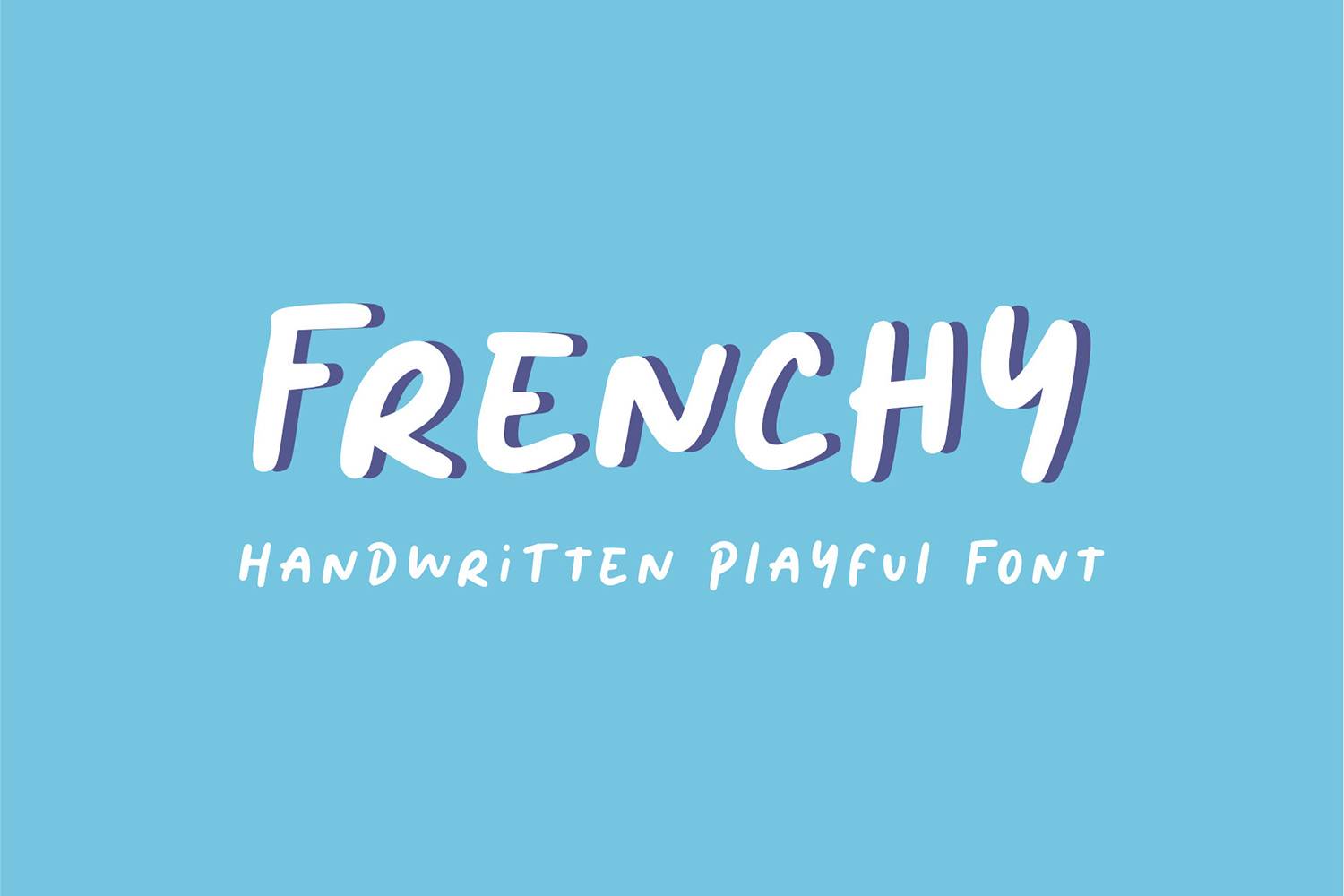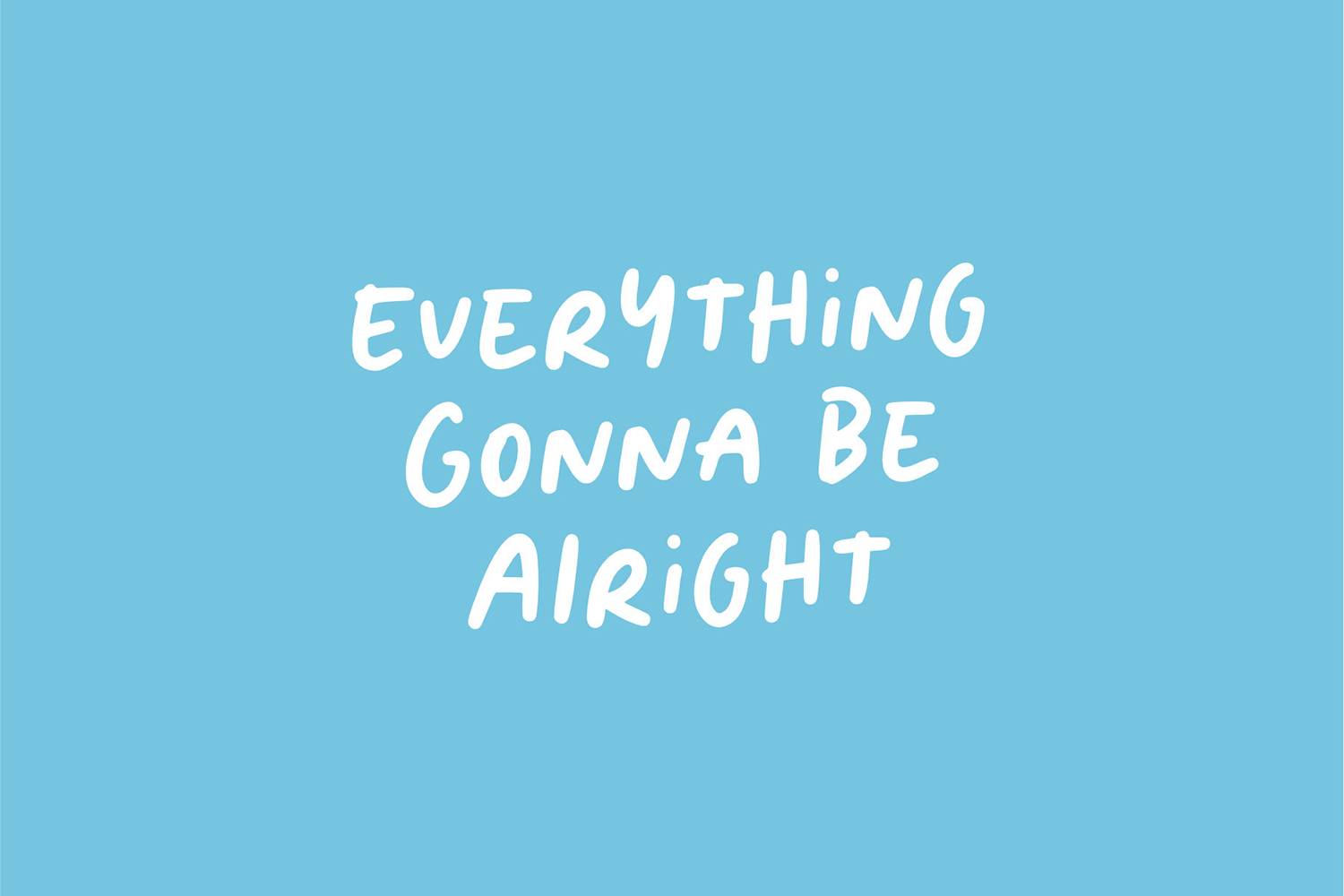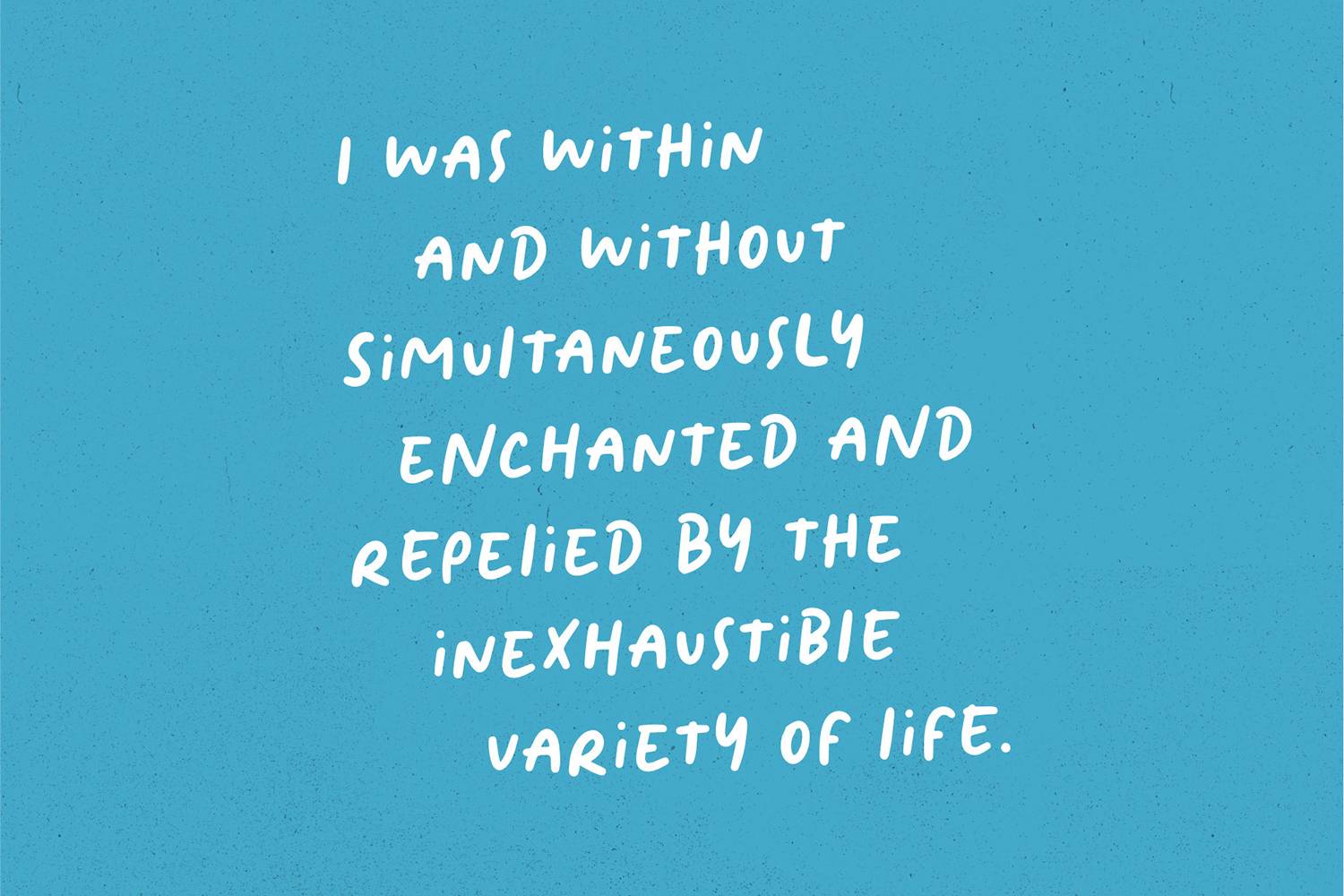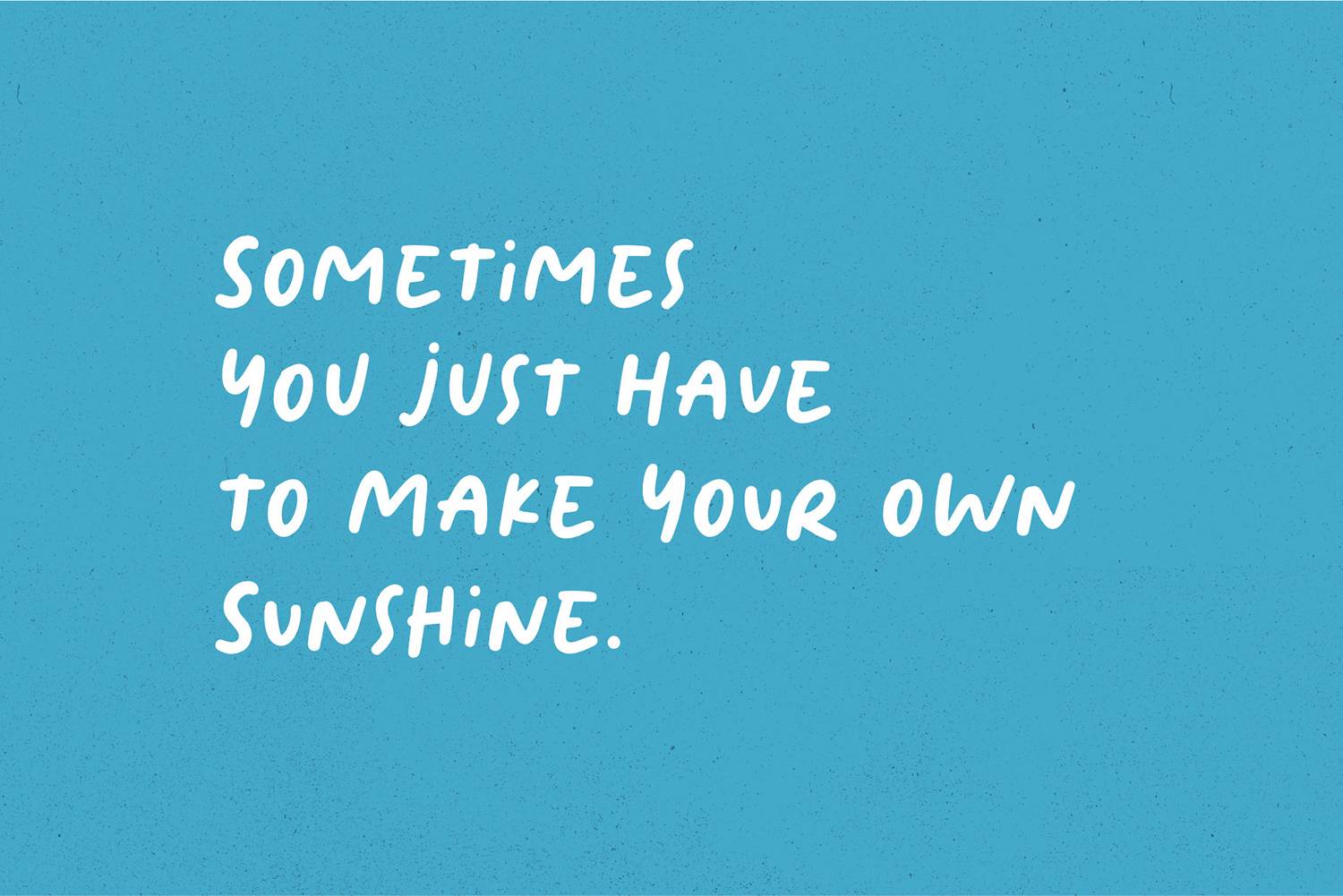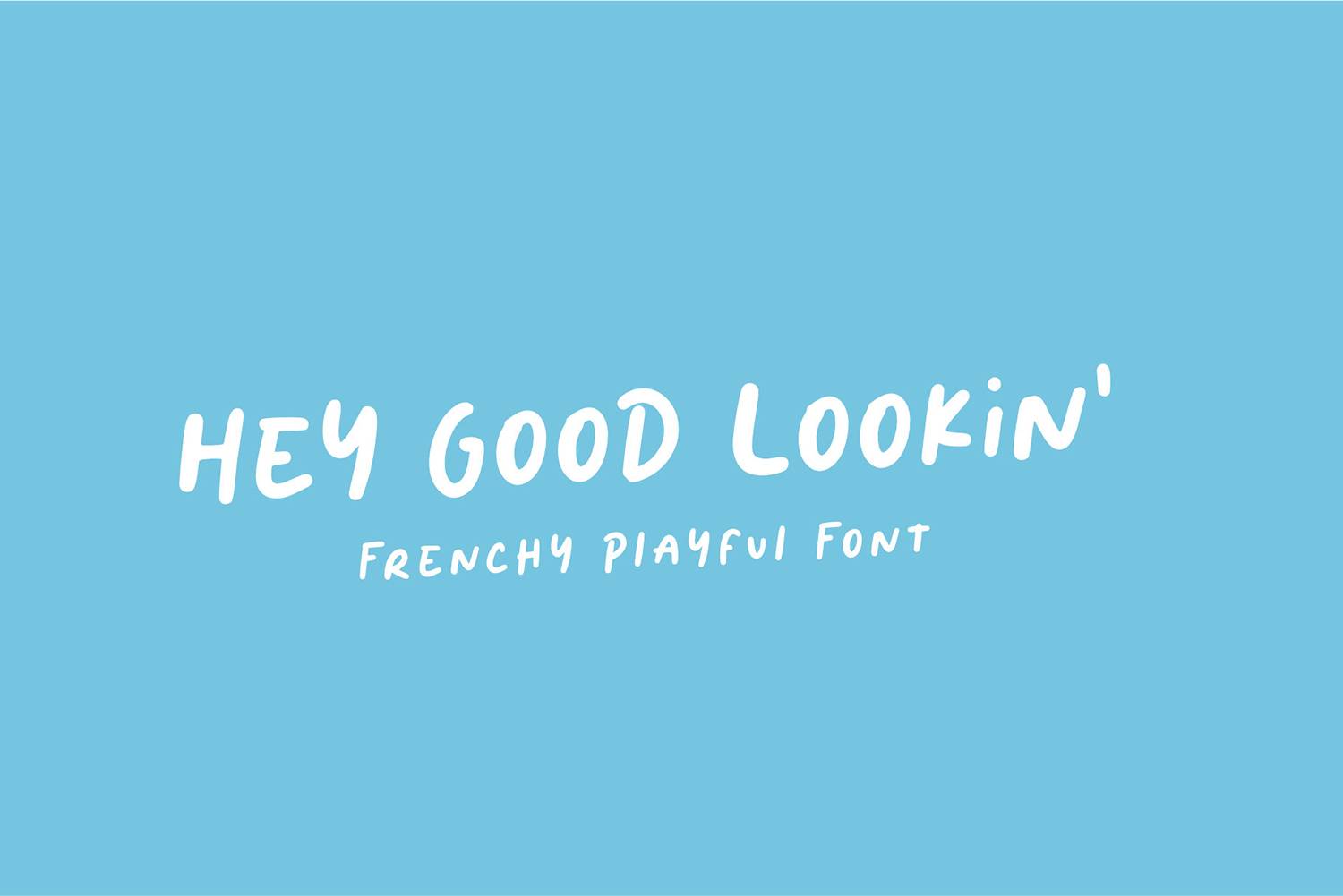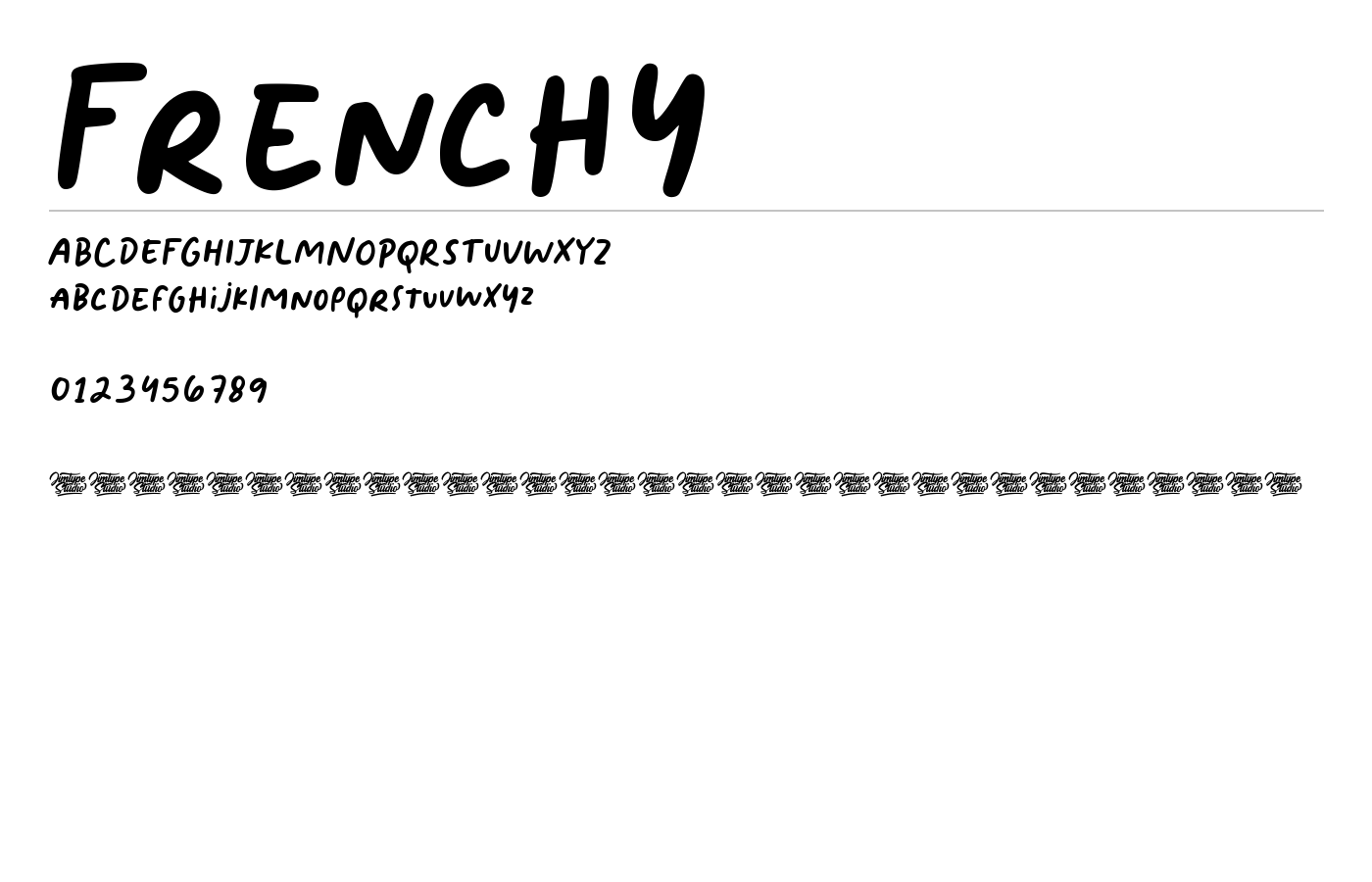
Frenchy Font is a casual, handwritten-style sans serif that feels friendly and approachable with its rounded, slightly uneven strokes and medium weight. Its playful letterforms and natural flow make it ideal for branding, packaging, and creative projects seeking a warm, informal touch. This font works beautifully in headlines and logos where a personal, relaxed vibe is desired.
Frenchy Font
| Designer | Jimtype Studio |